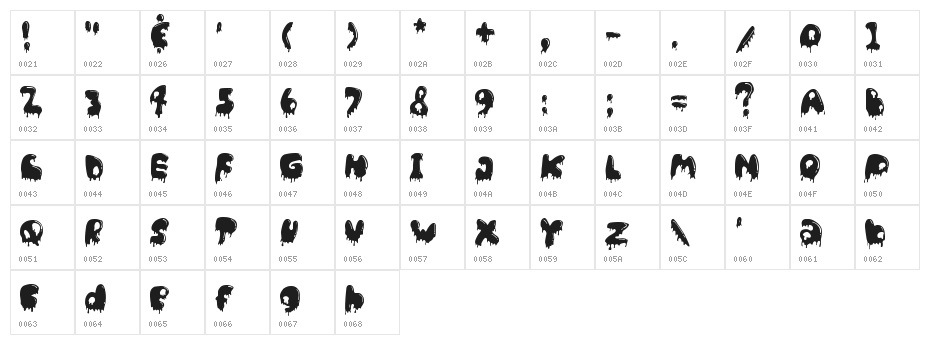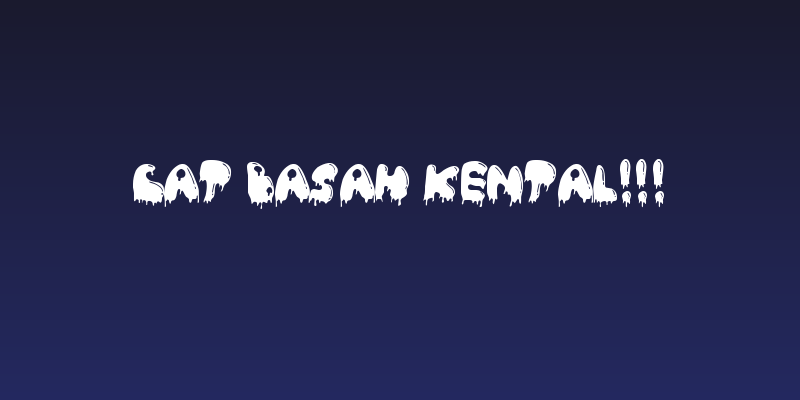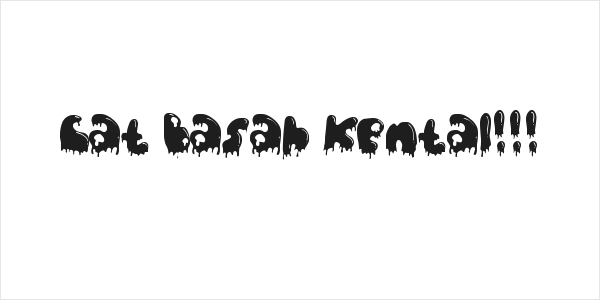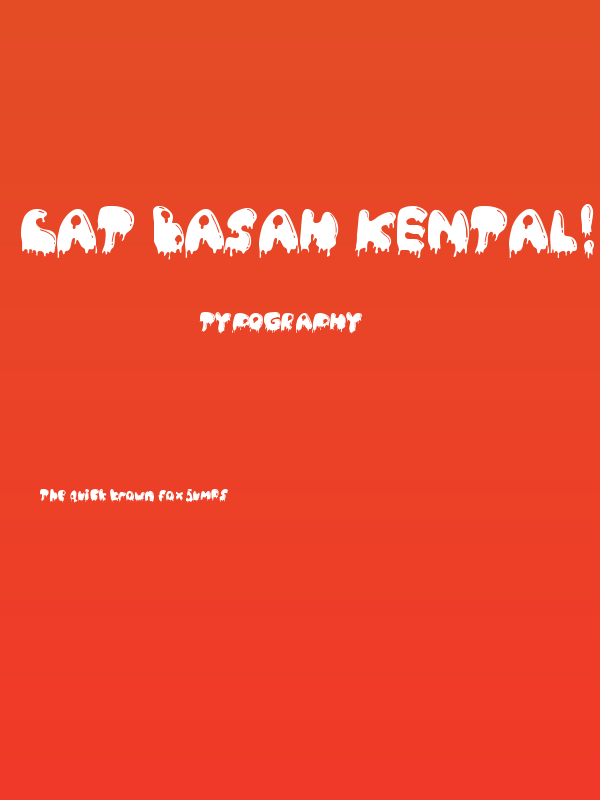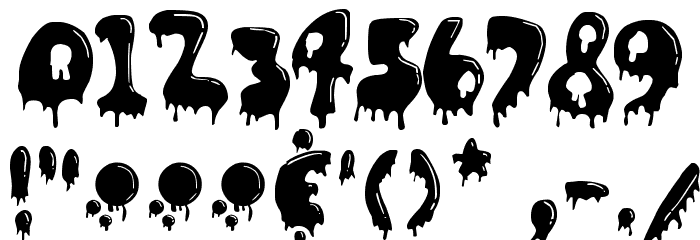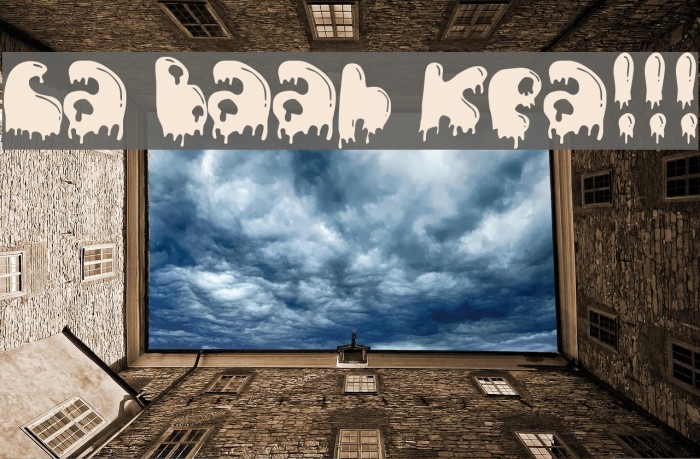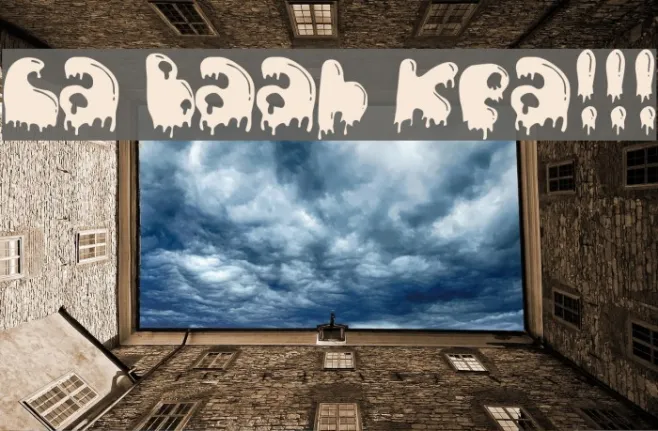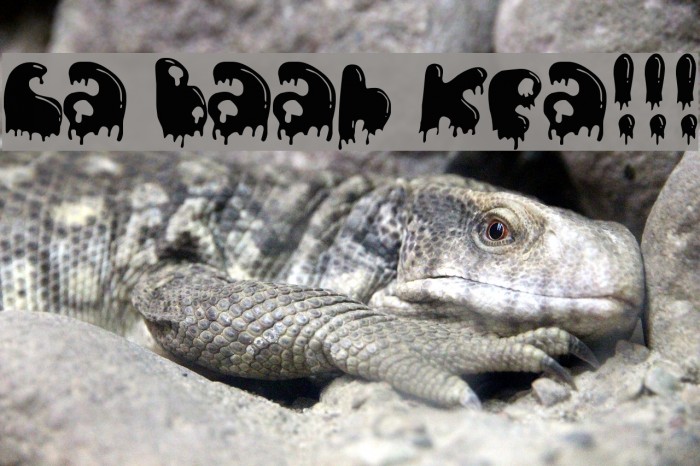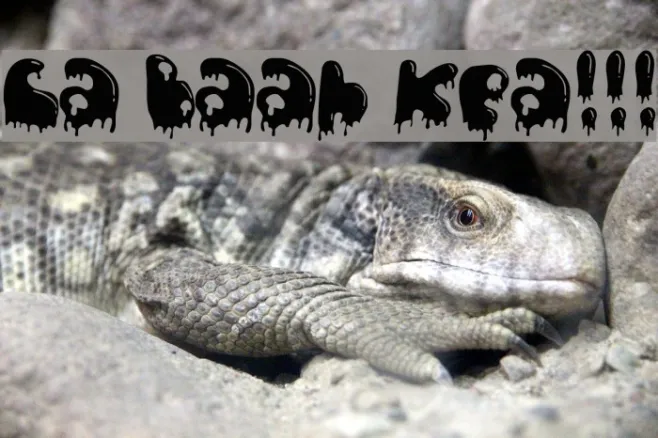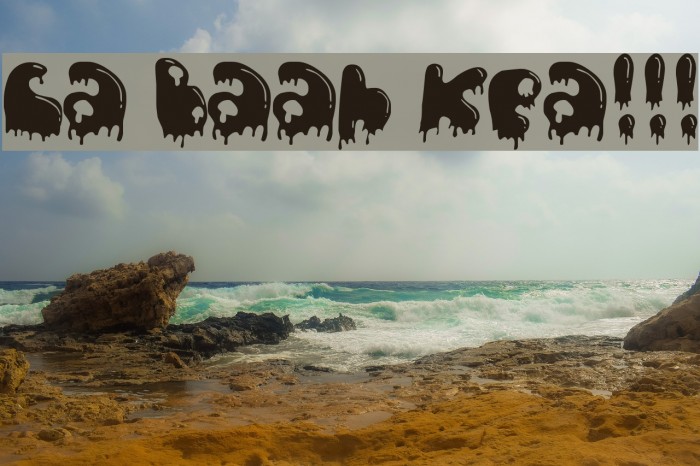
Cat Basah Kental!!! Font
Cat Basah Kental!!! Description
This font features a bold, dripping effect that gives the impression of wet paint or melting liquid. The characters are rounded and have a playful, yet slightly eerie appearance, making them stand out with their unique style. The uppercase and lowercase letters maintain a consistent design, with each character appearing as if it is dripping or melting. This effect is also applied to the numbers and special characters, ensuring a cohesive look throughout the font set. The font's boldness and distinctive style make it ideal for eye-catching designs.